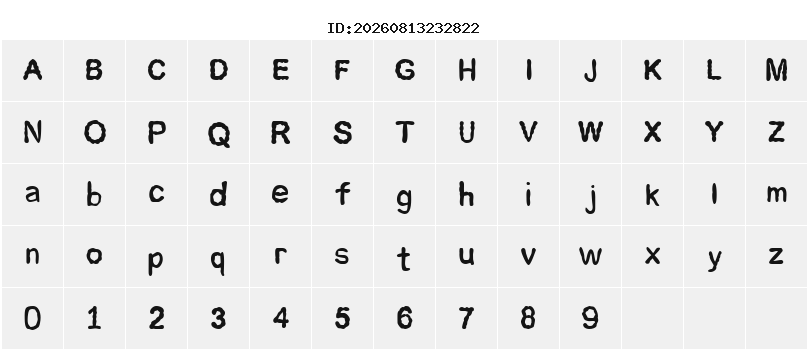
• Font Name: scurvycurvy
About scurvycurvy.ttf
scurvycurvy.ttf is a modern, elegant sans-serif font designed for ultimate readability and visual harmony. Perfect for branding, headlines, web design, and print materials.